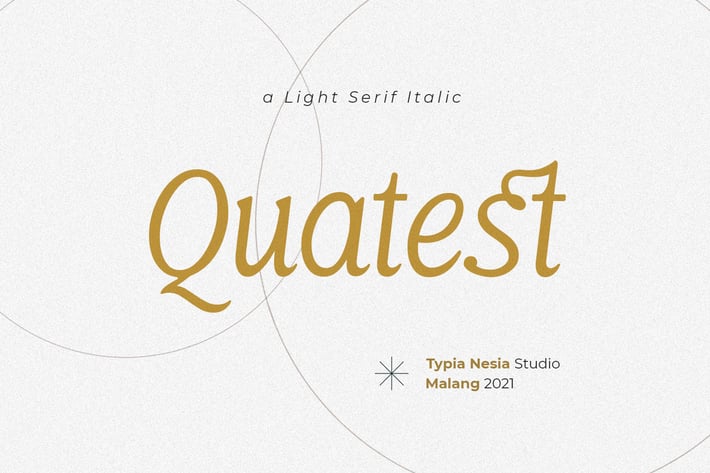
Quatest - elegant beauty italic font
Quatest - elegant beauty italic Serif font.
Quatest - elegant beauty italic Serif font is perfect for your up coming projects. Such as luxury logo and branding, classy editorial design, woman magazine, cosmetic brand, fashion promotional, art gallery branding, museum, historical of architectural, boutique branding, stationery design, blog design, modern advertising design, card invitation, art quote, home decor, book/cover title, special events and any more.